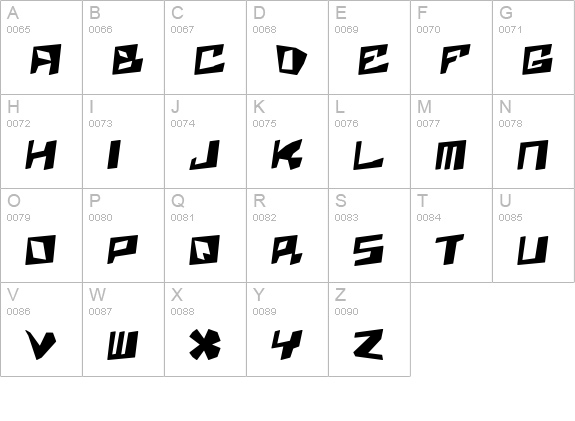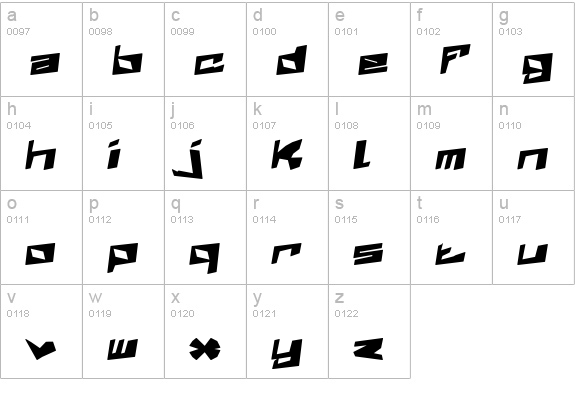
Zenith BRK Font Details
Zenith BRK is a versatile and modern font that adds a touch of elegance to any design project. With its clean lines and stylish appearance, this typeface is perfect for both headings and body text. The sleek and sophisticated look of Zenith BRK makes it ideal for a wide range of applications, from branding to editorial design. What sets Zenith BRK apart is its unique combination of classic and contemporary elements, giving it a timeless appeal that will never go out of style. Whether you're working on a website, poster, or logo, Zenith BRK will elevate your design to new heights. The best part? Zenith BRK is available for free download at FontsMarket.com, making it accessible to designers and creatives of all levels. Don't miss out on this opportunity to add a touch of sophistication to your projects with Zenith BRK font.